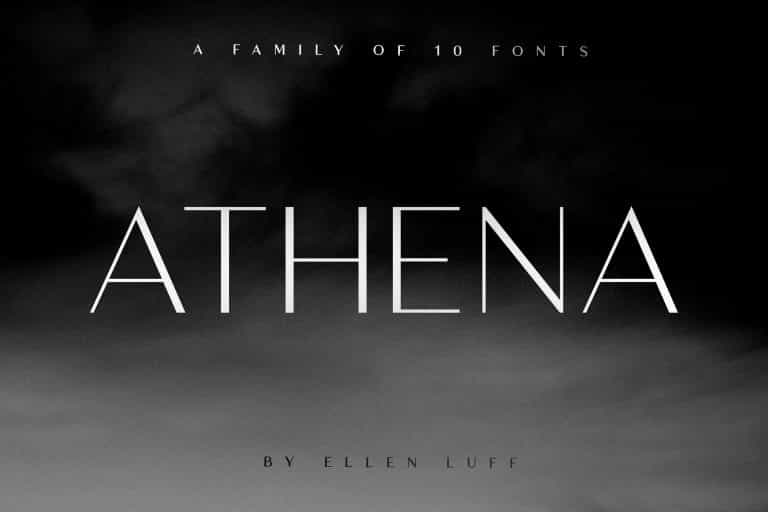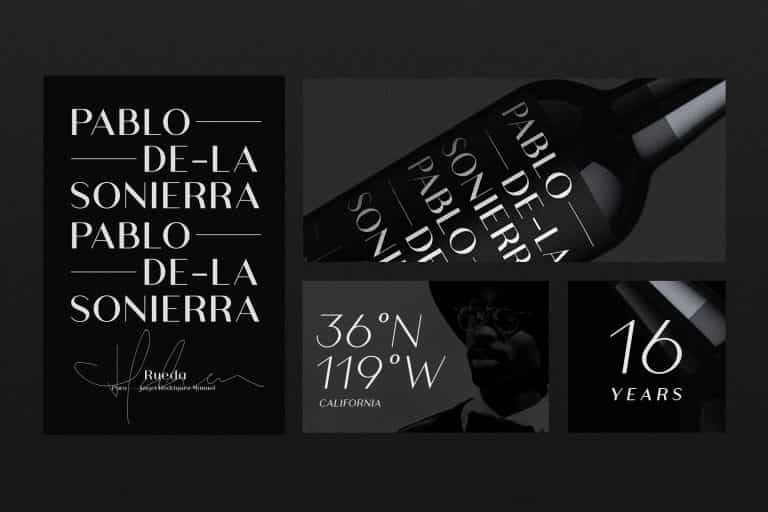
Introducing Athena Font! Athena by Ellen Luff. Athena is a classical typeface of contrast. It is a contemporary interpretation of the old didone genre, boldly playing with extremes of thick strokes and whisper thin curves, but eliminating the serifs, rooting it in modern-day design. Its beauty and function proper harmony.